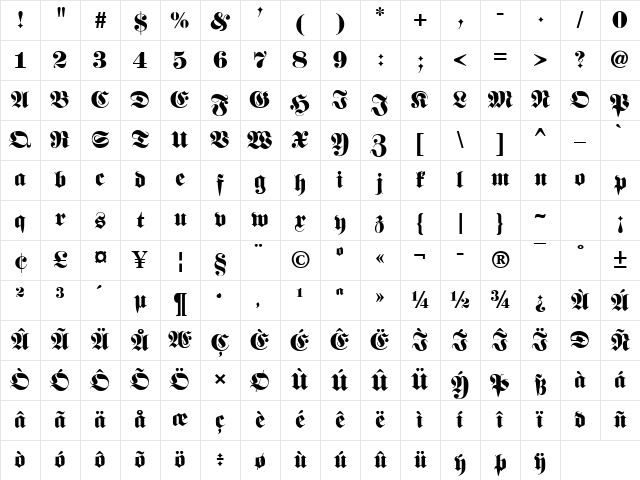
Fette classic UNZ Fraktur Regular
Design Context for Fette classic UNZ Fraktur
Fette classic UNZ Fraktur draws on the rich tradition of blackletter calligraphy, with dense, angular strokes that evoke medieval manuscripts and old-world craftsmanship.
Font Pairing: Pair with a clean neutral sans-serif for body copy to let Fette classic UNZ Fraktur's character lead without overwhelming the composition.
Pro Tip: Reserve Fette classic UNZ Fraktur for display and logo use - pair it with a clean sans-serif for body copy to prevent the composition from feeling oppressive.